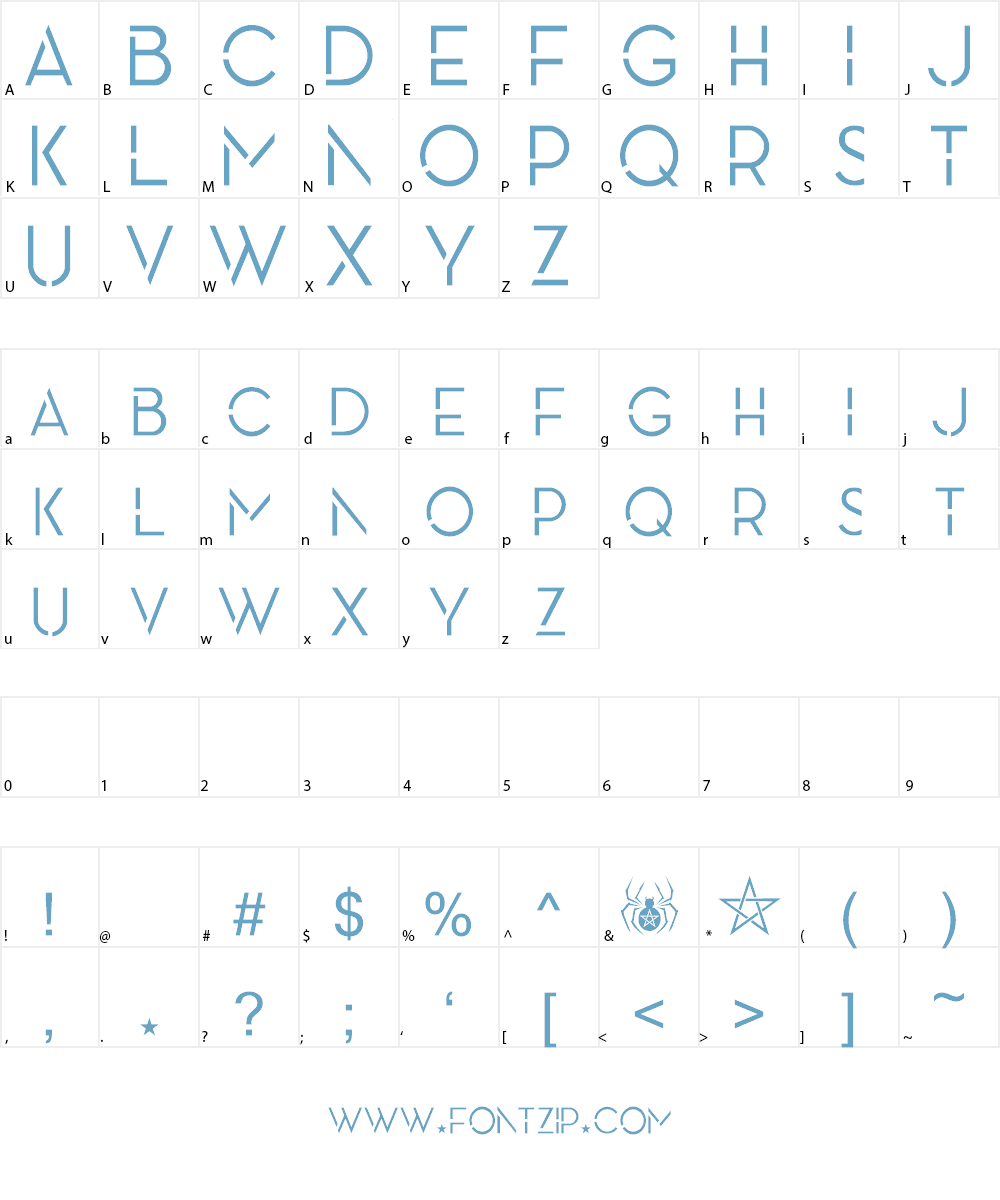
Magical typeface based on the recent crime movies about a team of illusionists, who rob banks during their performances. Capital letters have similar broken circulation middles, gapped corners and missing horizontal and vertical connections.